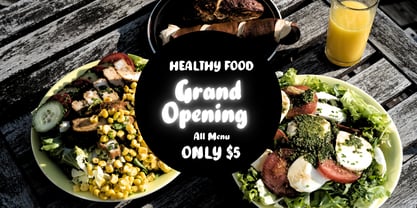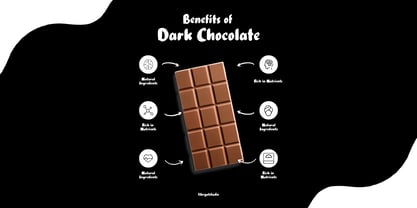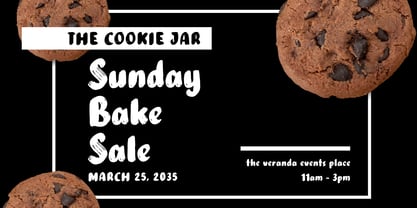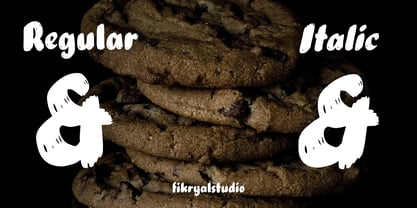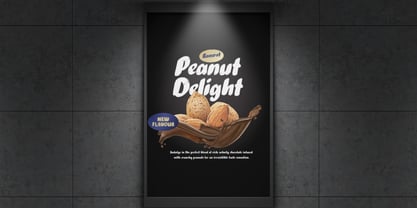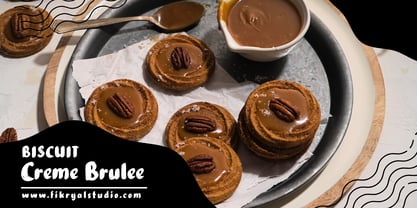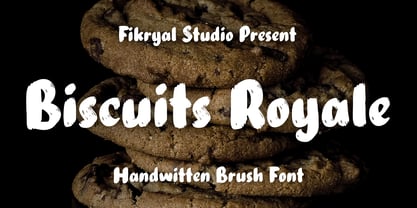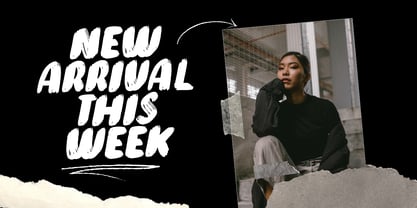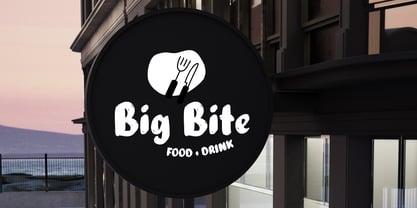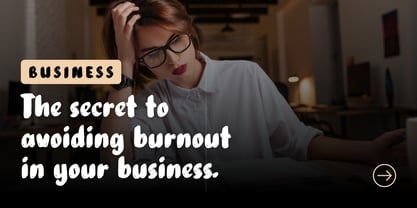
Biscuits Royale
Biscuits Royale is a handwritten brush font that brings a natural, dynamic, and authentic touch to your designs. Featuring two distinct stylesRegular and Italic—this font offers versatility for creating expressive and bold typography.
Key Features:
• Two Styles: Regular & Italic
• Handcrafted Brush Strokes for an organic feel
• Multilingual Support for various languages
• Perfect for branding, logos, packaging, social media, quotes, and more!
Biscuits Royale is the ideal choice for designers looking to craft designs that are bold, energetic, and full of personality. Whether you’re working on branding, posters, product packaging, or inspiring quotes, this font will add a unique handcrafted touch to your project.
Elevate your designs with the handcrafted beauty of Biscuits Royale!